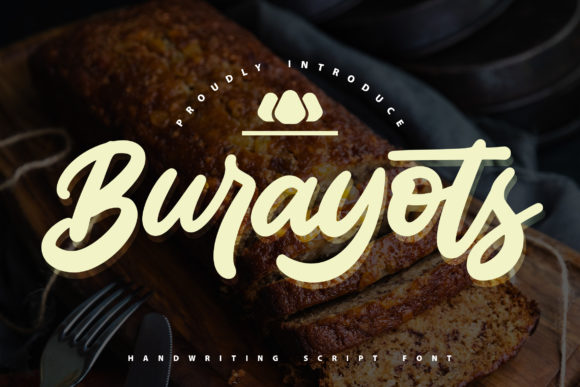
The Designer’s Delight: Burayots Font
An Honest Review of Burayots Font
What I Love About Burayots ✨
• ✅ Assertive yet elegant handwritten style
• ✅ Classy calligraphic influences with a modern twist
• ✅ Perfect for a wide range of design projects, from wedding invitations to branding and packaging
• ⚠️ Some users may find the font a bit too assertive for certain projects
The Story Behind Burayots Font
Burayots Font was designed with the intention of creating a unique, yet timeless font that would capture the essence of handwritten calligraphy. The designer aimed to create a font that would be both elegant and assertive, making it perfect for a wide range of design projects. With its PUA encoding, Burayots offers users easy access to a variety of glyphs and swashes, allowing for endless creative possibilities.
Q: Is Burayots Font suitable for body text?
A: While Burayots is a beautiful font, it’s best suited for headlines, titles, and short paragraphs. Its assertive style may not be ideal for lengthy body text.